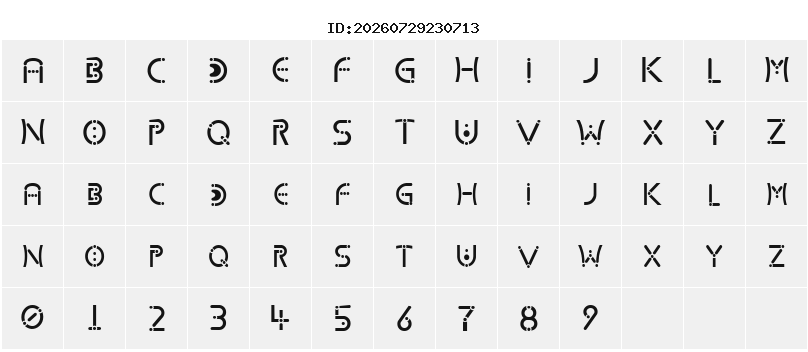
• Font Name: Kharnorric Royal
About Kharnorric Royal.ttf
Kharnorric Royal.ttf is a modern, elegant sans-serif font designed for ultimate readability and visual harmony. Perfect for branding, headlines, web design, and print materials.